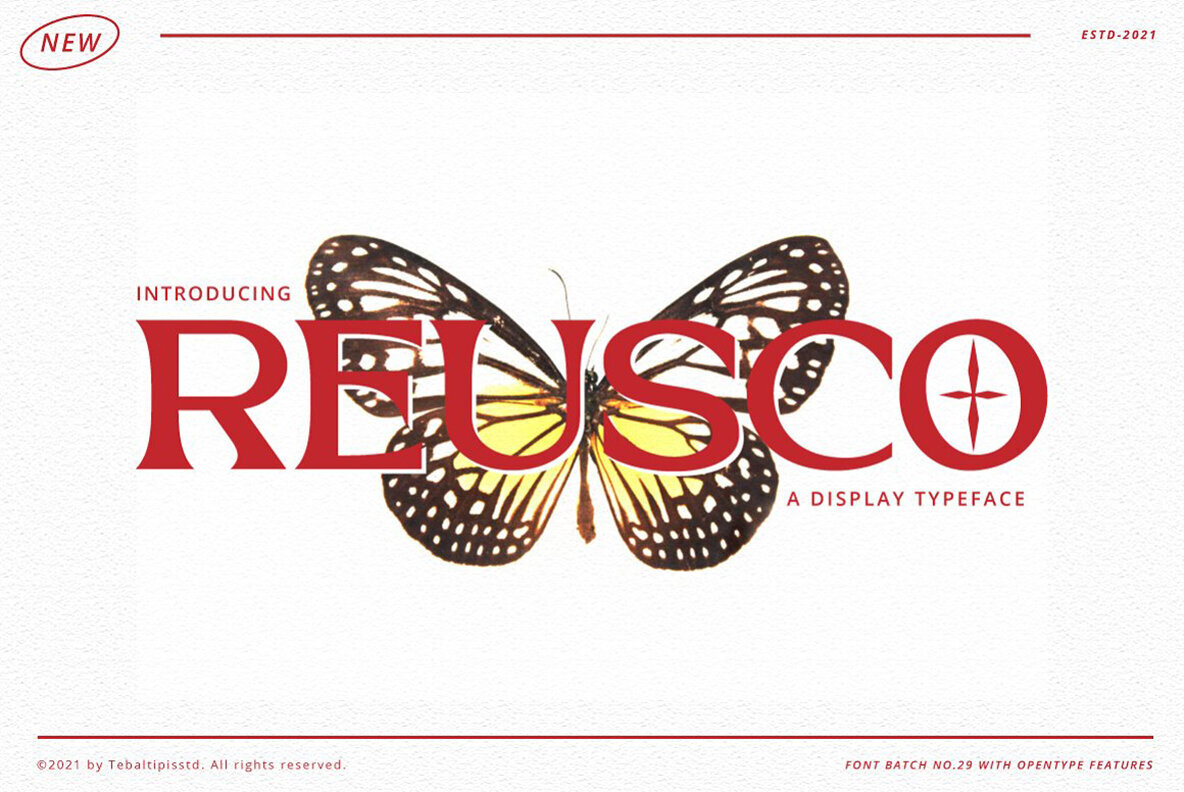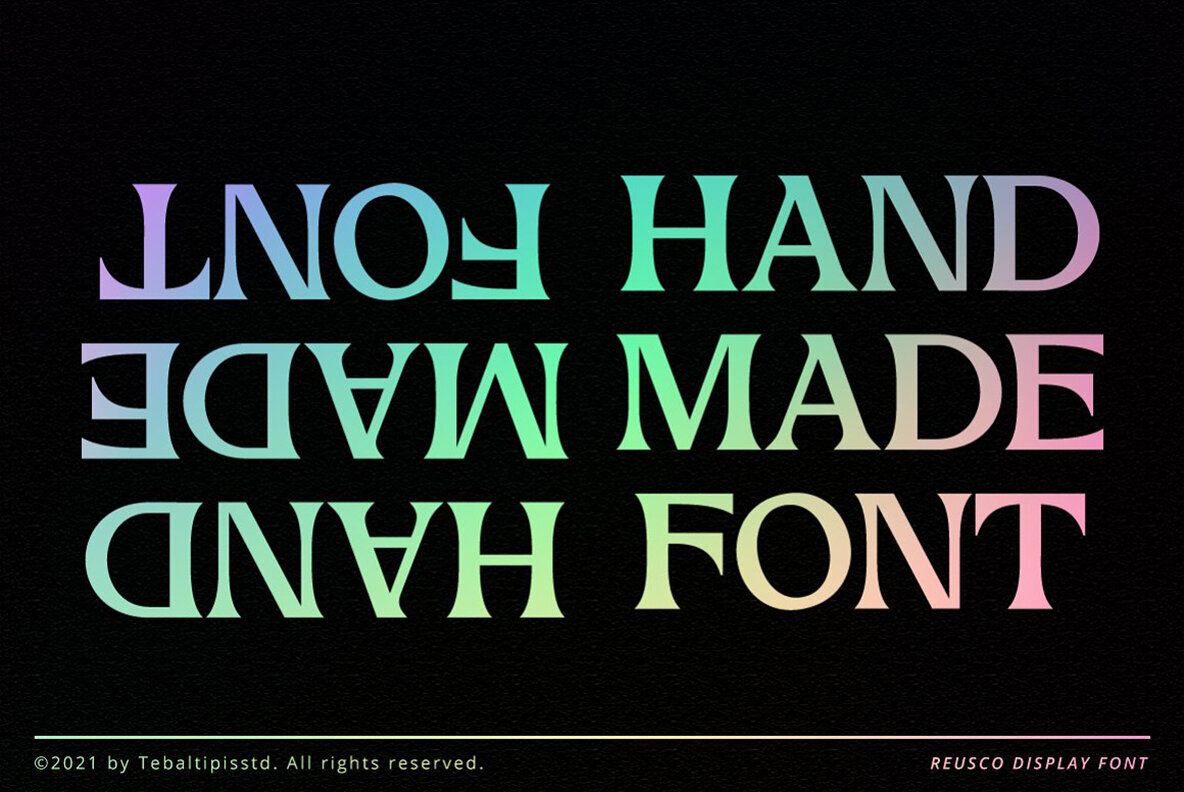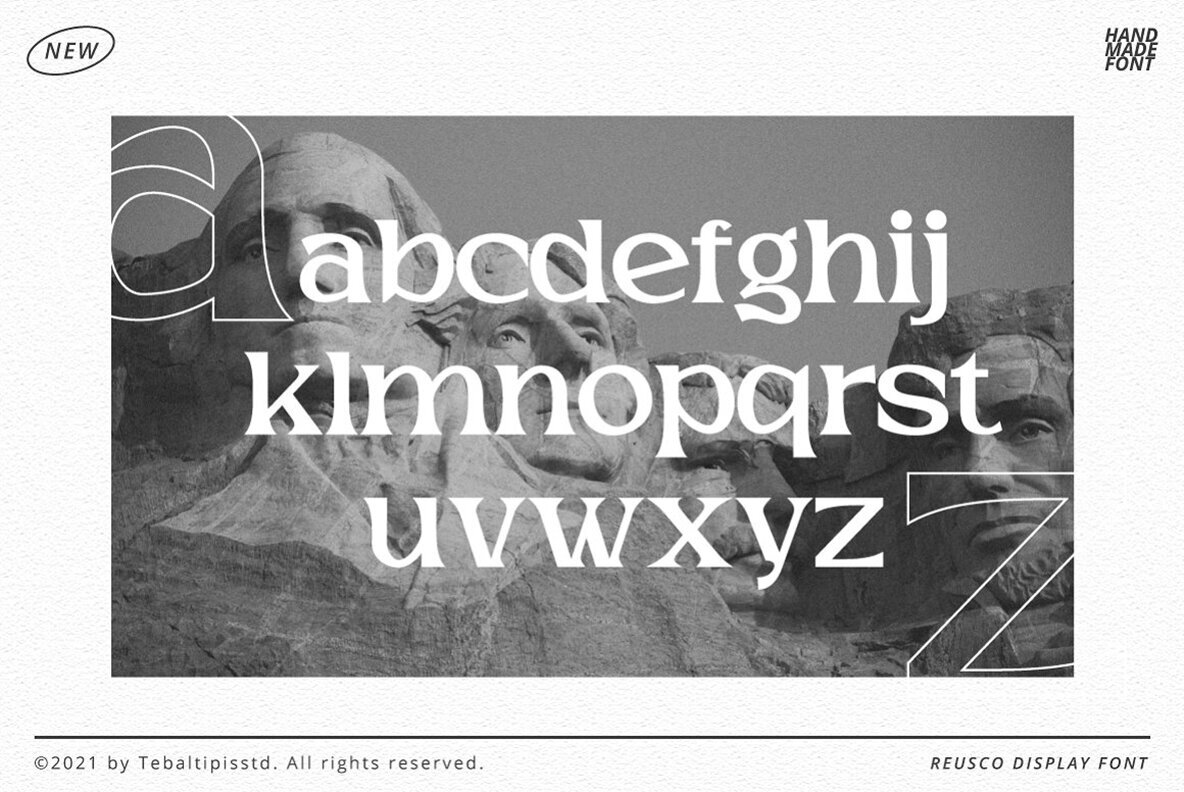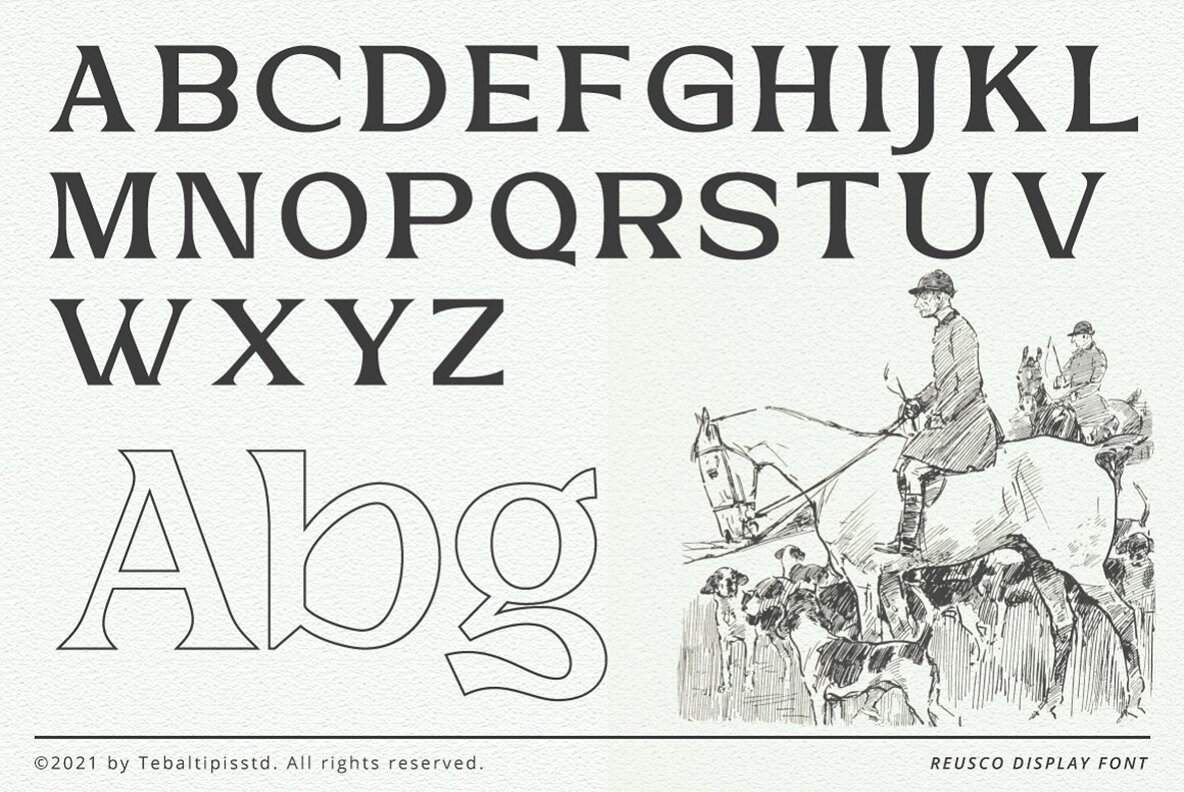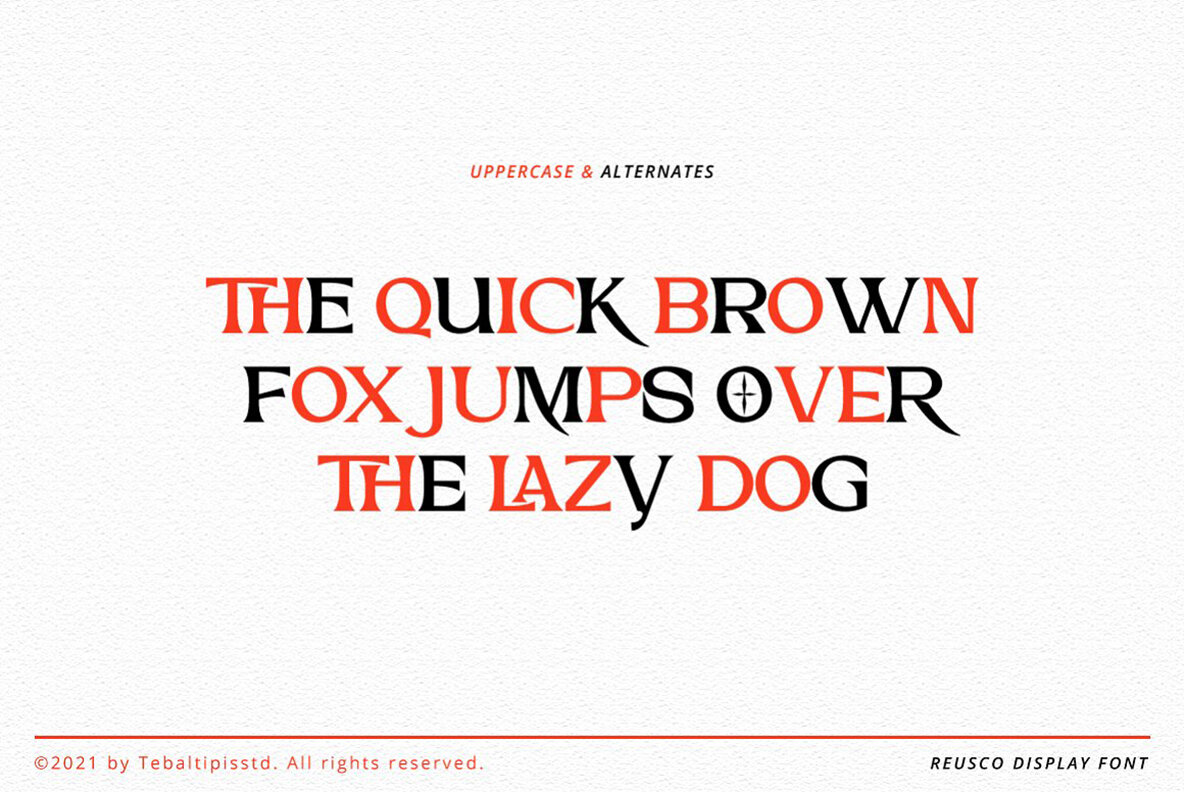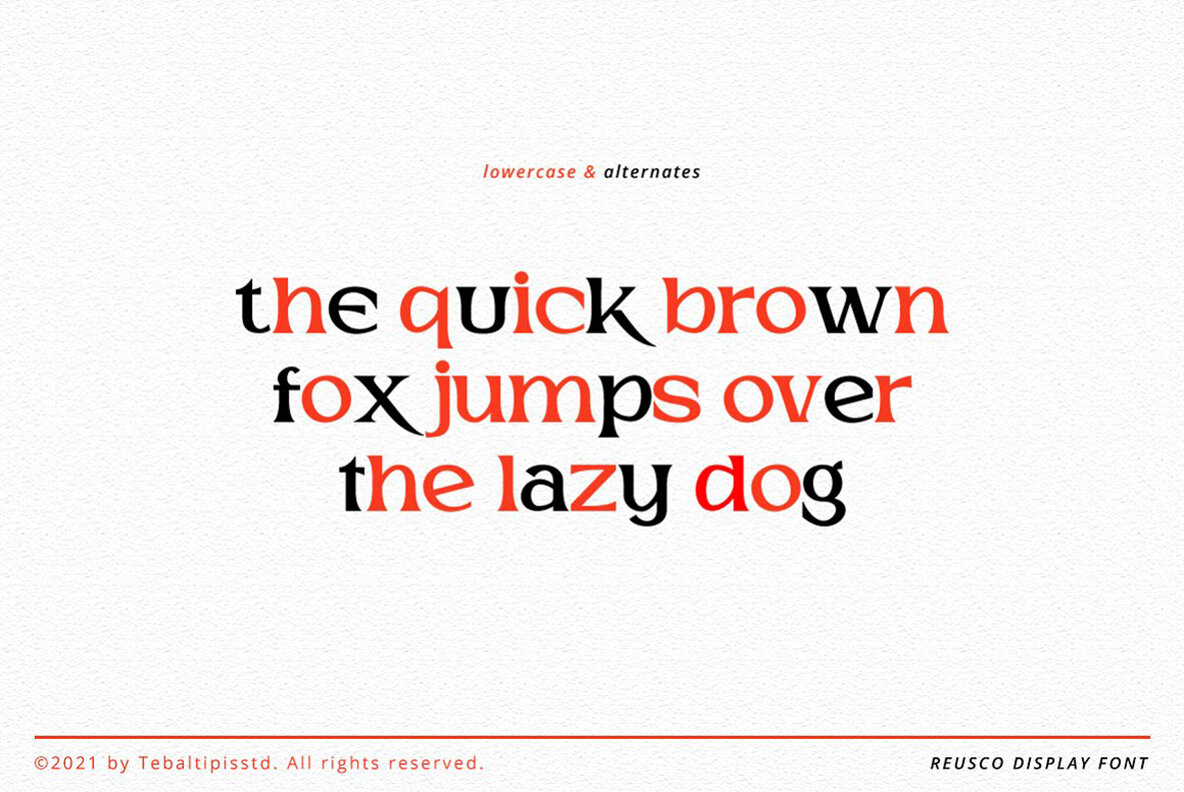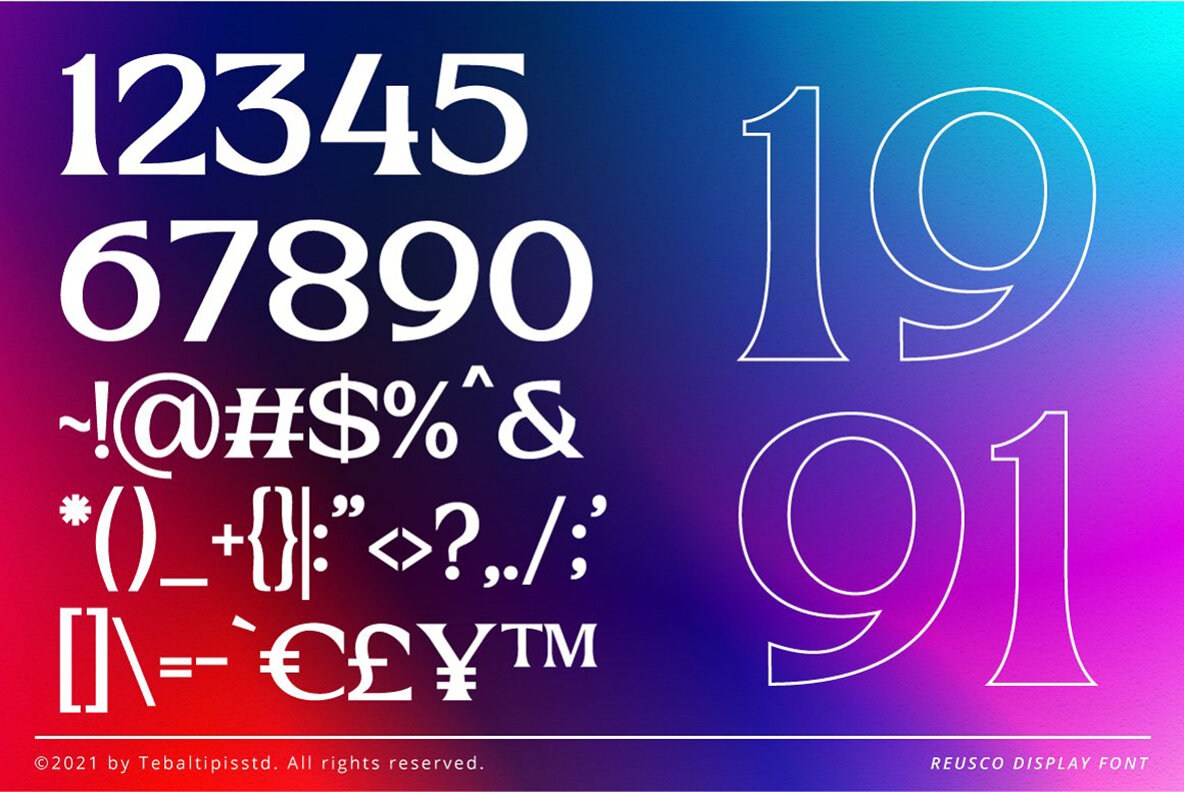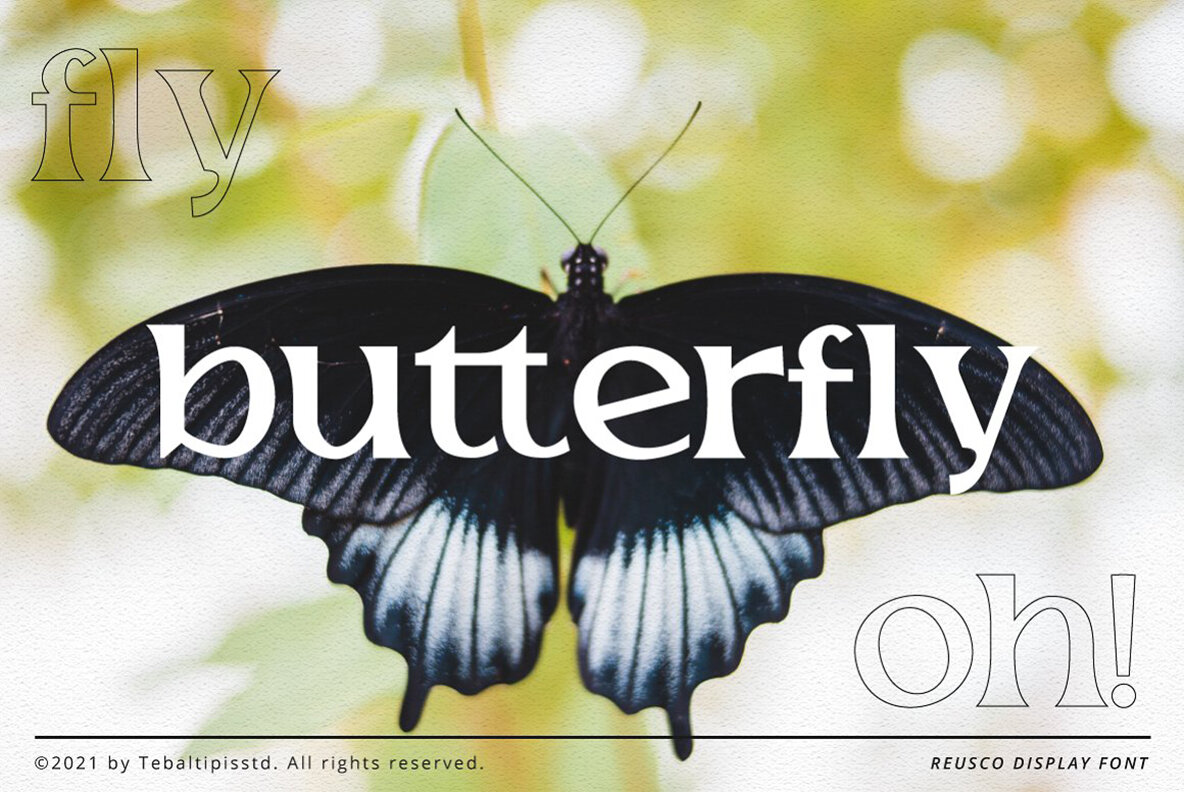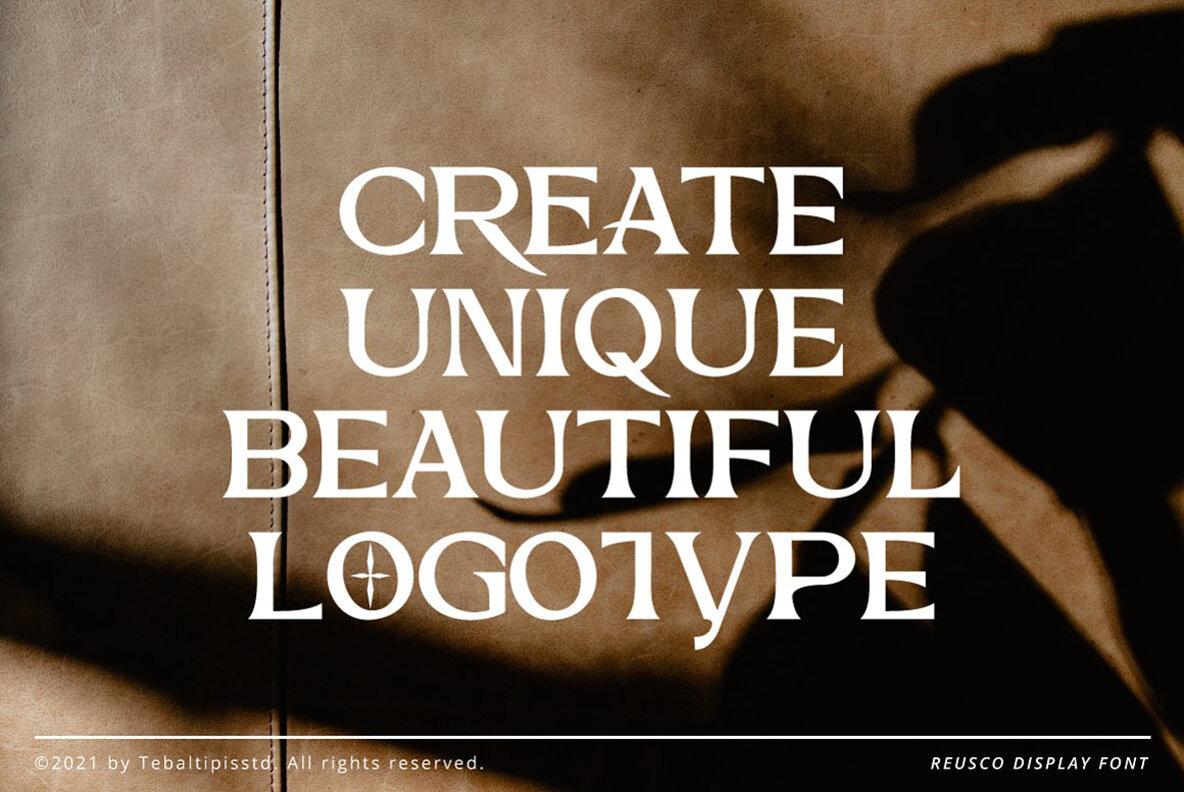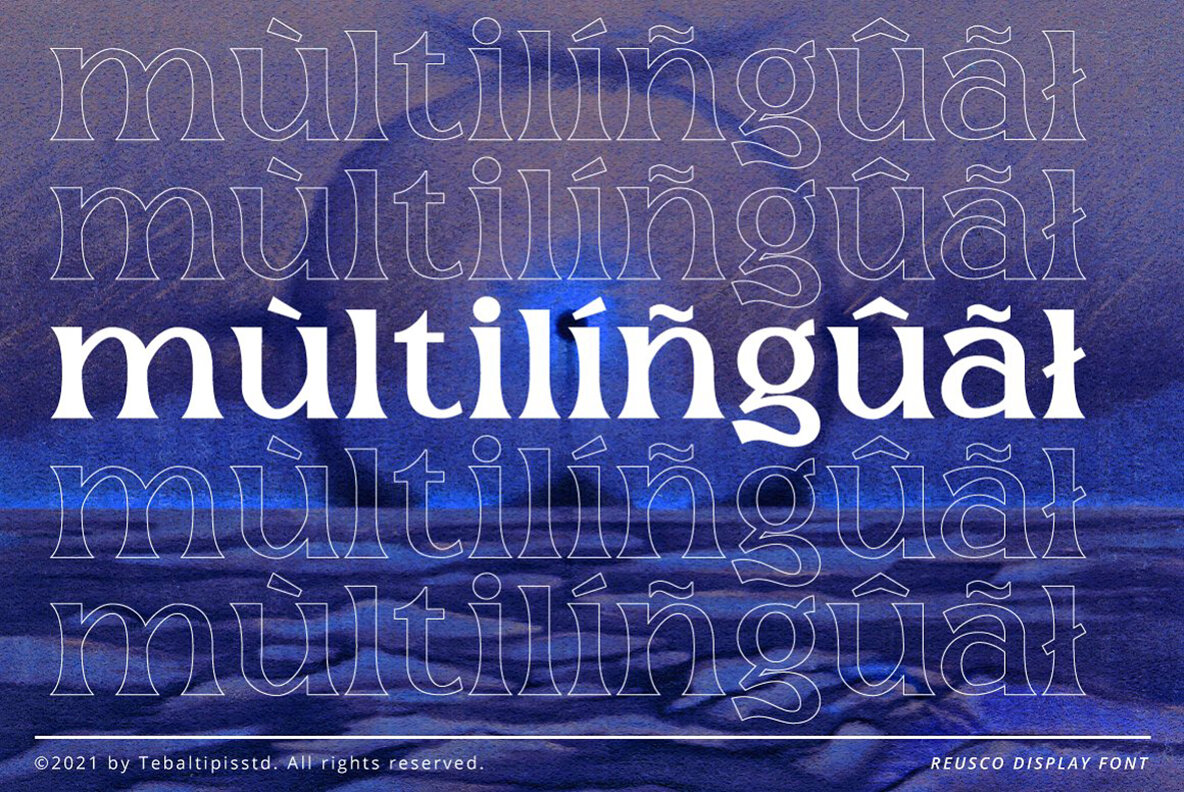
Reusco Font
Reusco Display
Reusco Display is a versatile font designed to enhance your typography projects with its unique alternates. Ideal for crafting luxury logos and sophisticated branding, it suits a wide array of creative projects. Whether you are working on classy editorial designs, women's magazines, or cosmetic brands, Reusco Display adds an extra element of elegance and style.
Perfect for modern advertising, boutique branding, and stationery design, this font also shines in more artistic endeavors like art gallery branding and historical architecture. It is equally well-suited for use in home decor, card invitations, book titles, and special event materials. With Reusco Display, you can craft visually engaging and memorable designs tailored to a variety of themes and styles.